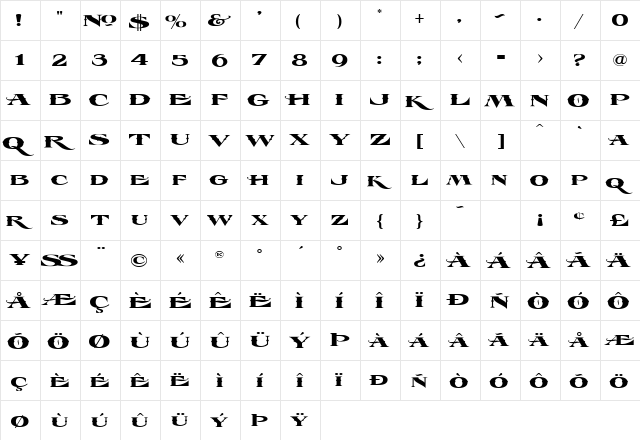
LHF Esoteric 3 SPURS Regula
| Style | Regula |
Design Context for LHF Esoteric 3 SPURS Typeface
LHF Esoteric 3 SPURS is a composed and adaptable typeface that performs quietly and consistently across a wide range of design contexts.